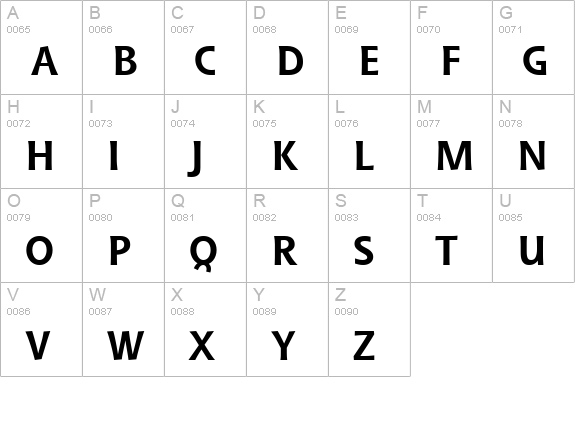
Que SSi Bold is a strong, high-contrast variant in the Que typeface family \xE2\x80\x94 well suited to headlines, attention-grabbing titles, and strong calls-to-action.
Que SSi Bold is a stunning and expressive font that exudes confidence and boldness. With its strong and assertive letterforms, this font demands attention and makes a powerful statement. It is a perfect choice for headlines, titles, and other display applications where you want to make a lasting impression. What sets Que SSi Bold apart is not just its striking design, but also the fact that it is available for free. Yes, you read that right! This exceptional font is freely available to download at FontsMarket.com. You can now enjoy the beauty and impact of this font without any cost or limitations. Que SSi Bold is a versatile font that can be used in various design projects. Whether you're creating a logo, designing a poster, or crafting a website, this font will add a touch of sophistication and professionalism to your work. Its bold nature and distinct letterforms make it easy to read even at small sizes, ensuring that your message is conveyed effectively. With its generous x-height and well-balanced proportions, Que SSi Bold is equally captivating in both uppercase and lowercase letters. Its clean and precise lines give it a modern and contemporary feel, while its bold weight adds a sense of strength and impact. So why wait? Take advantage of this amazing opportunity to enhance your designs with the stunning Que SSi Bold font. Download it for free at FontsMarket.com and unlock a world of creative possibilities. Whether you're a professional designer or a hobbyist, this font will surely become an invaluable asset in your collection.